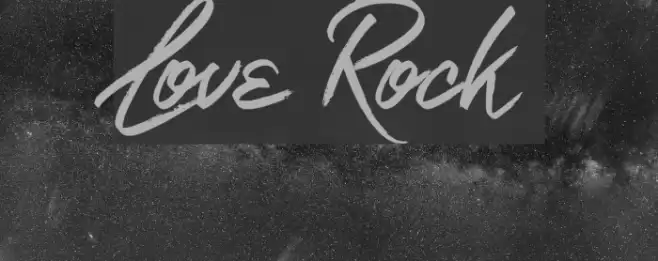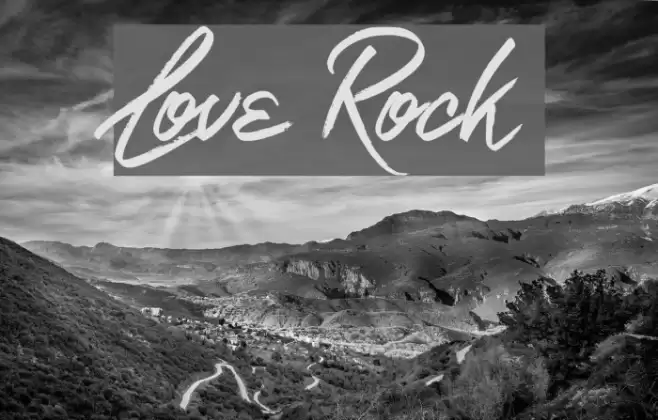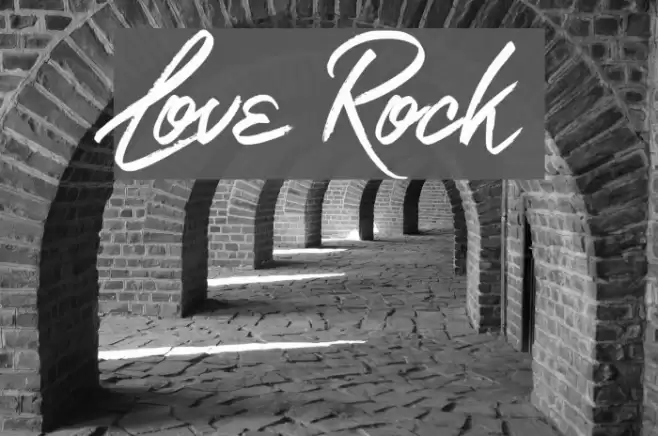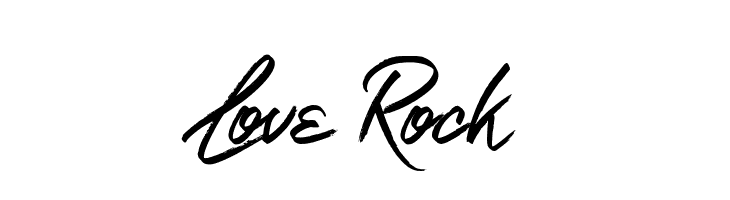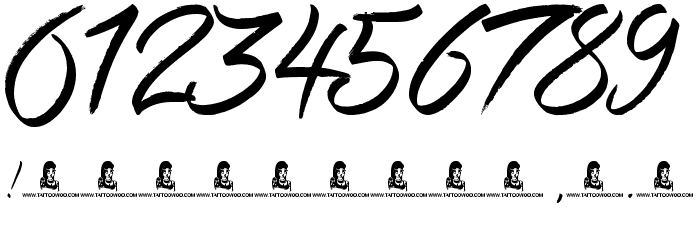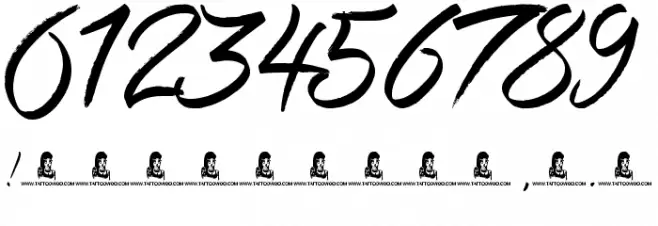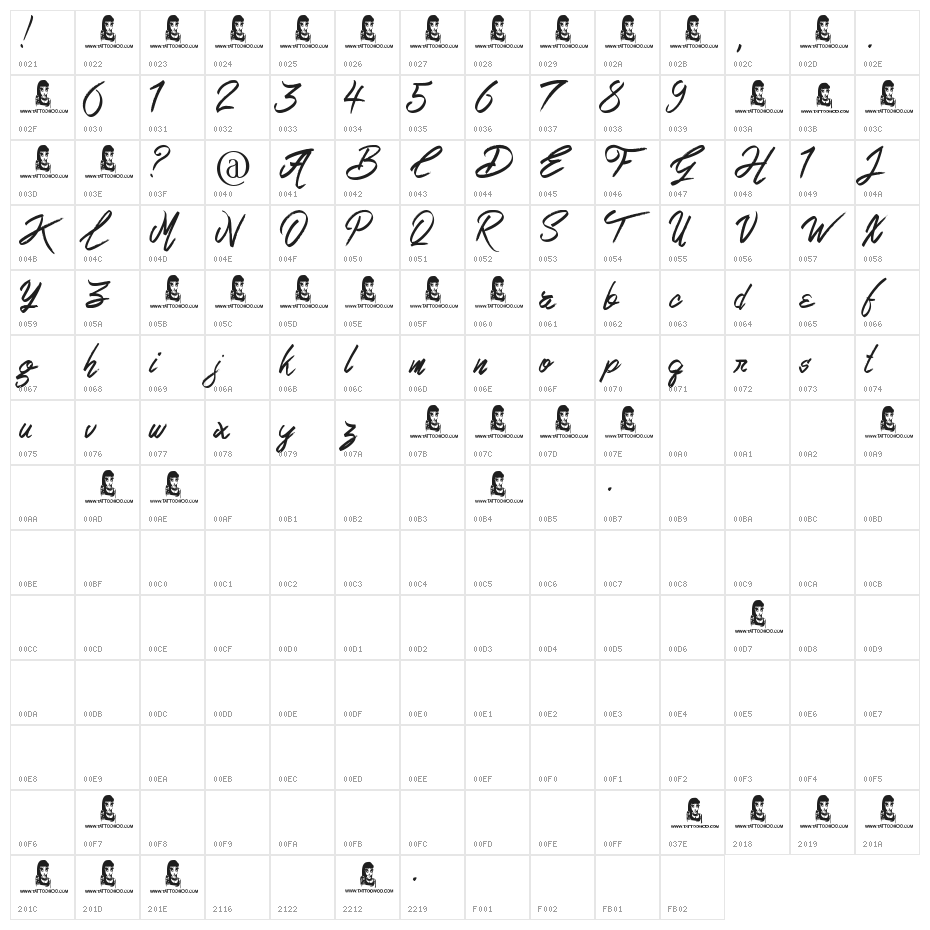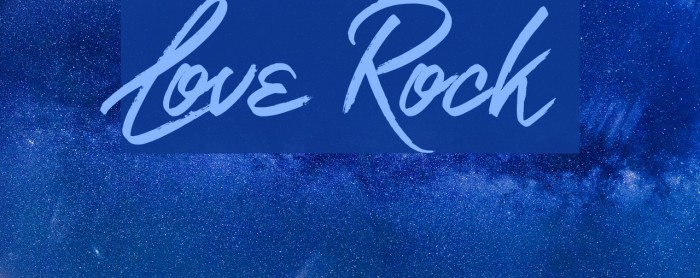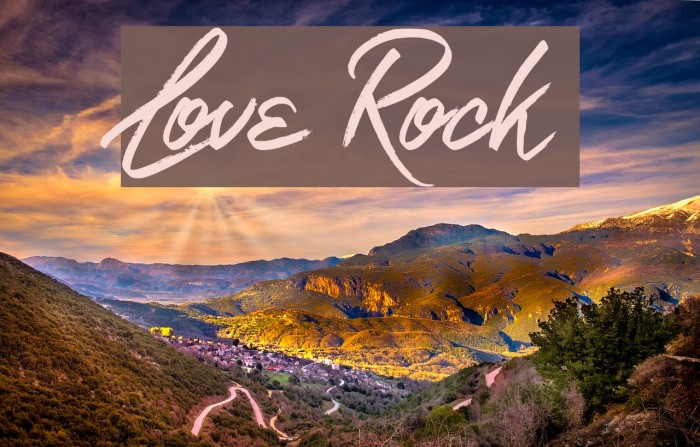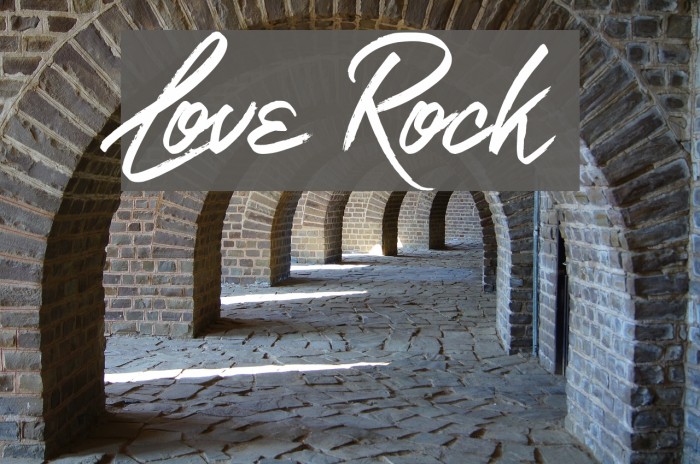
Love Rock Font
Love Rock Description
This font features a bold, expressive script style with a dynamic and energetic flow. The letters are interconnected, mimicking the fluidity of handwriting with a brush-like texture. The uppercase characters are particularly striking, with exaggerated loops and swashes that add a sense of movement and flair. The lowercase letters maintain a consistent style, complementing the uppercase with their own unique curves and angles. Numbers and special characters are designed to match the overall aesthetic, ensuring a cohesive look across all text elements. This font's bold strokes and artistic flair make it ideal for projects that require a personal, handcrafted touch.
A bold, expressive script font with a dynamic, brush-like texture from Uncategorized fonts.
- Proposed Projects: Ideal for branding, invitations, posters, and any design requiring a personal, artistic touch.
- Character Spacing: Tight
- Use Case: Logos, Headlines, Invitations